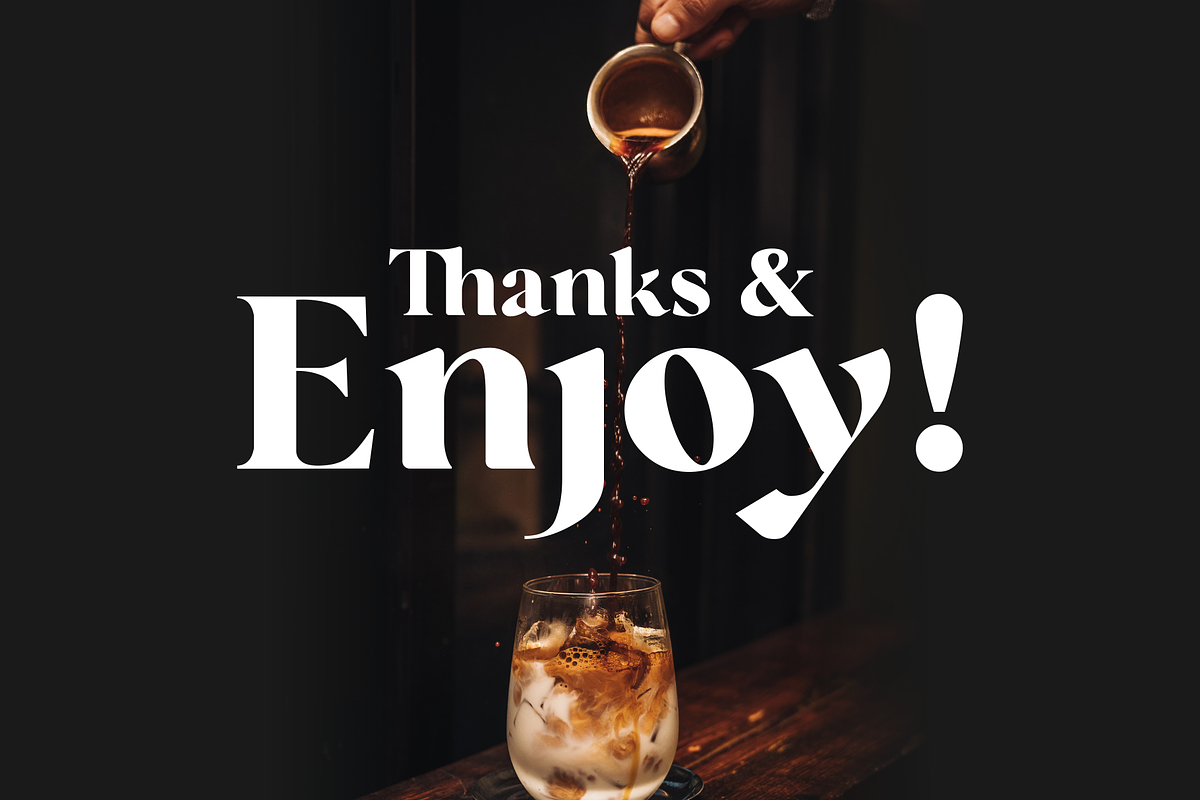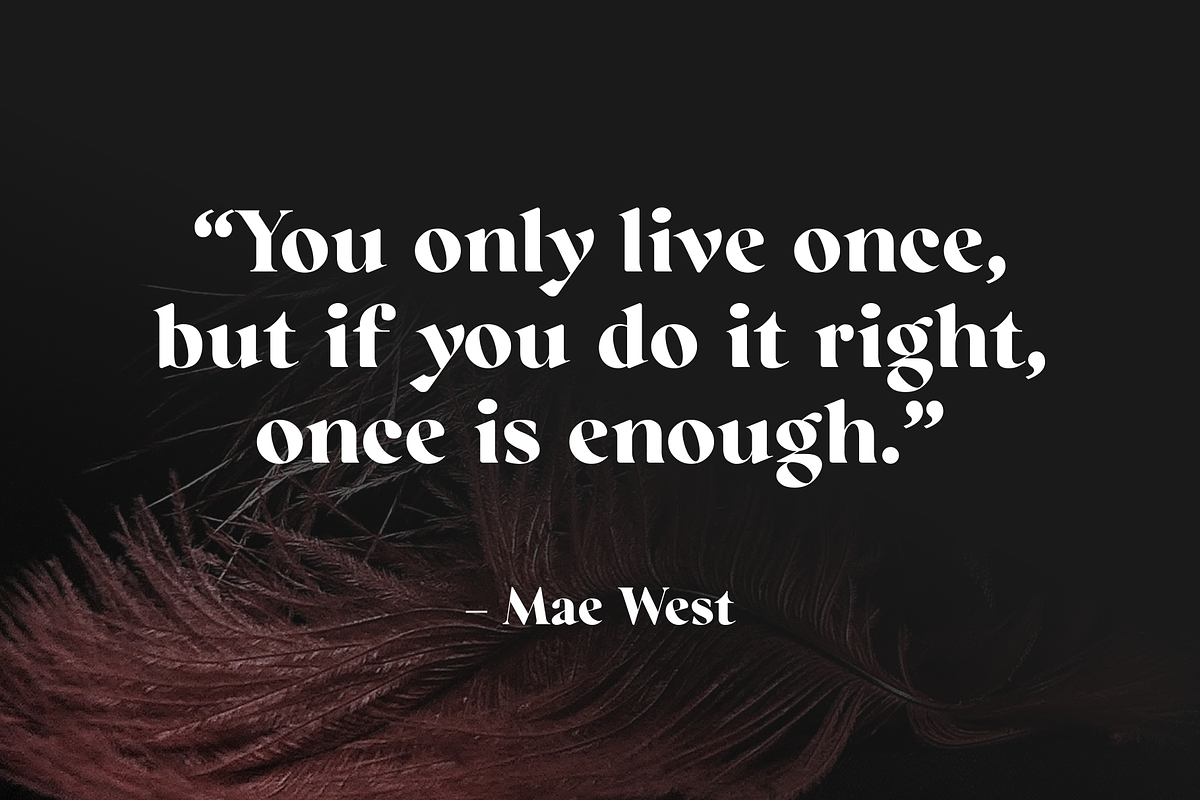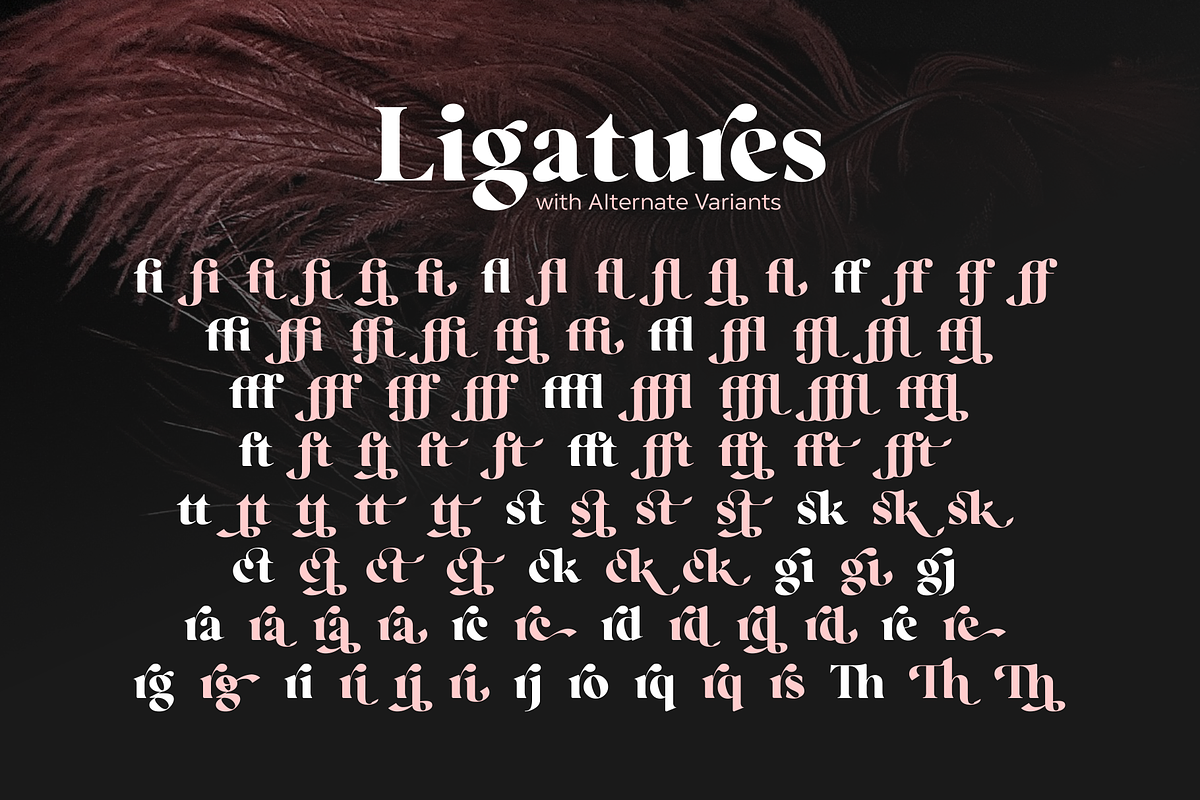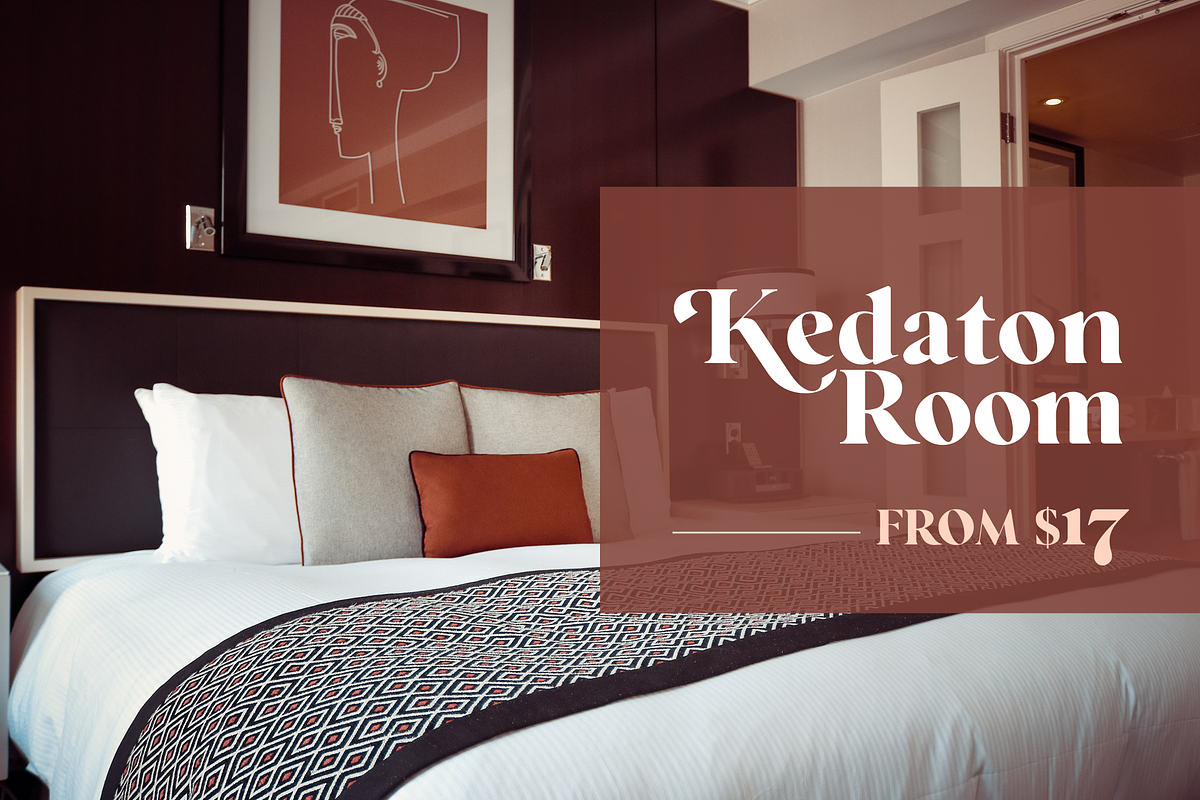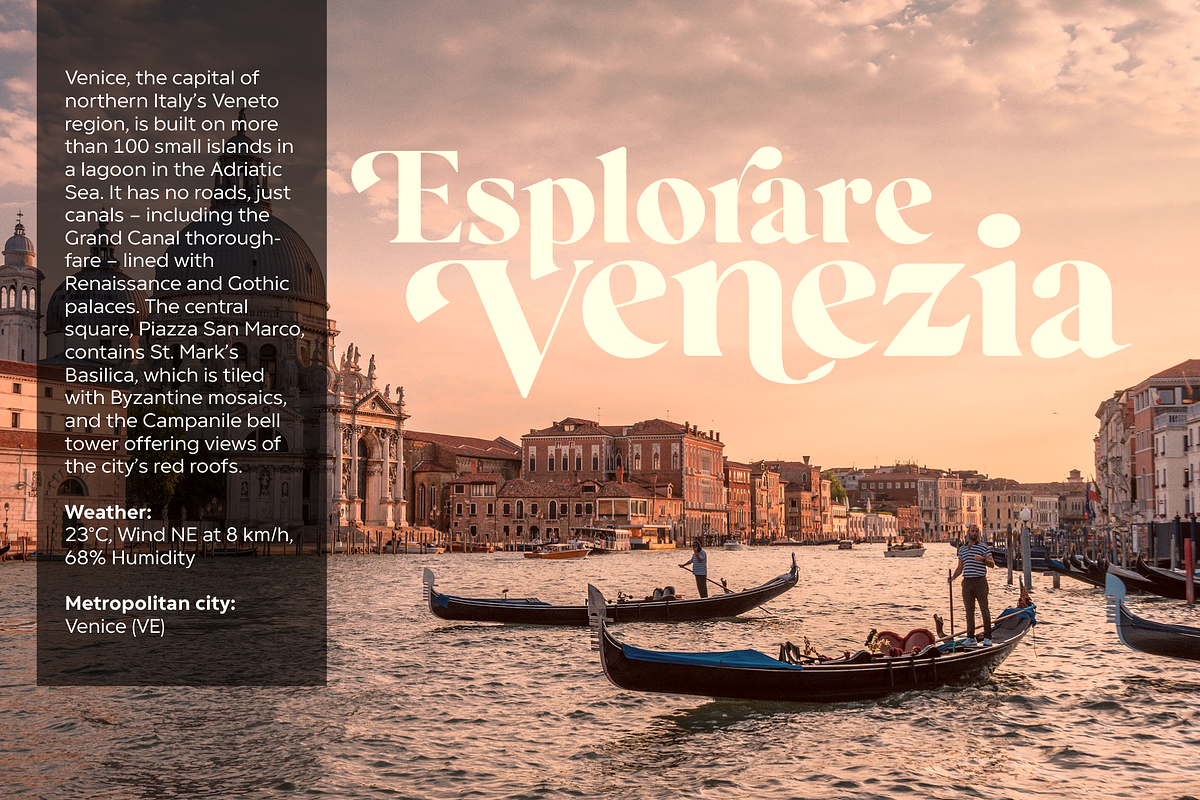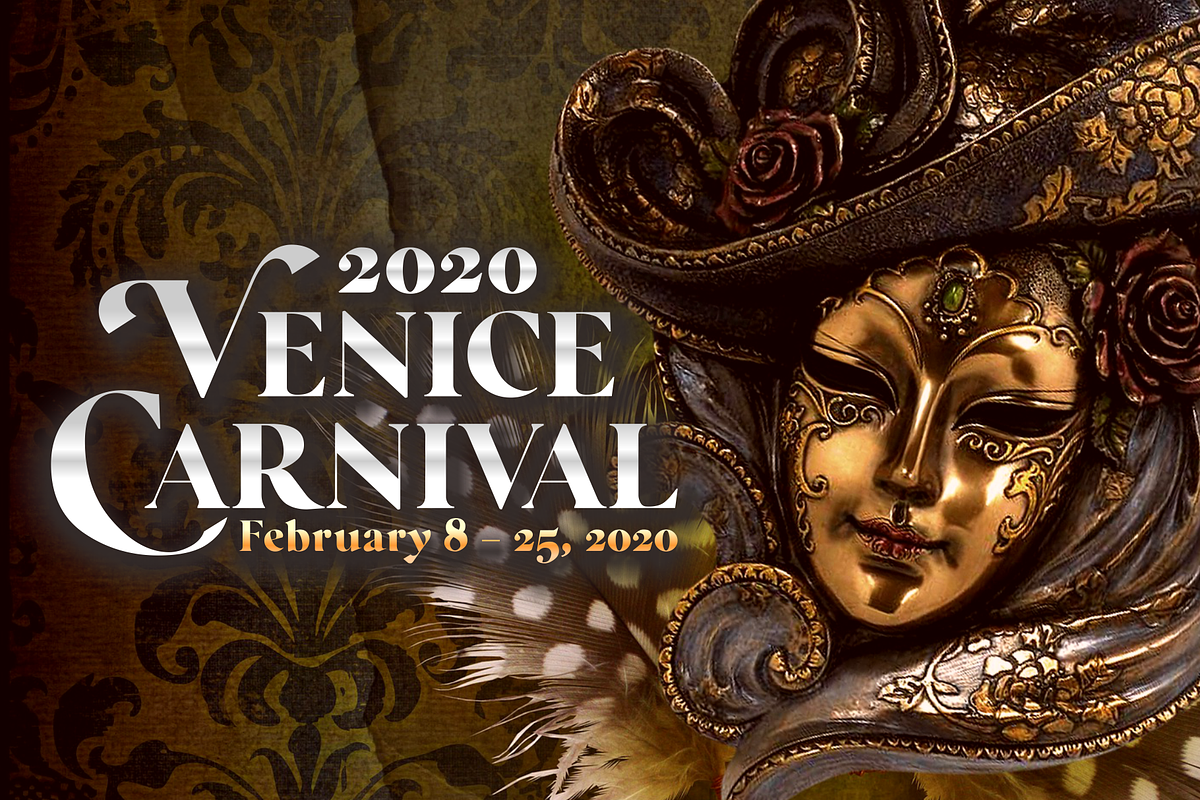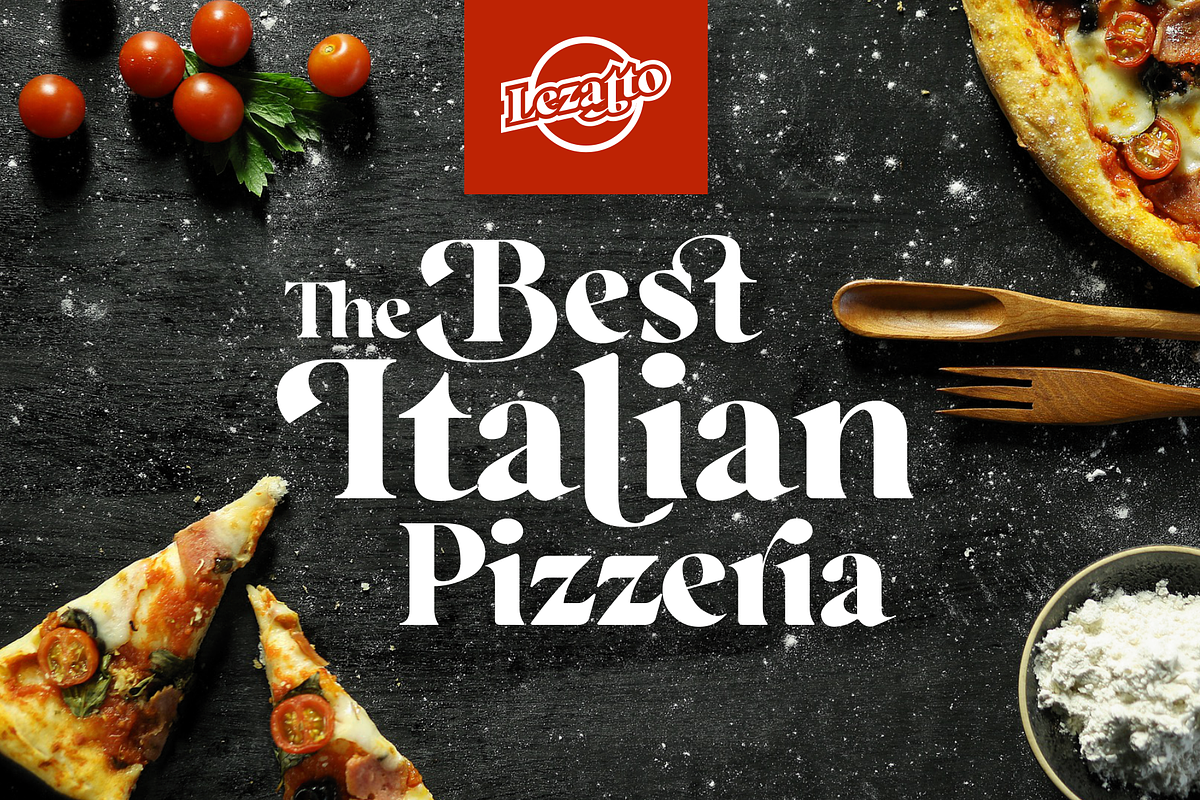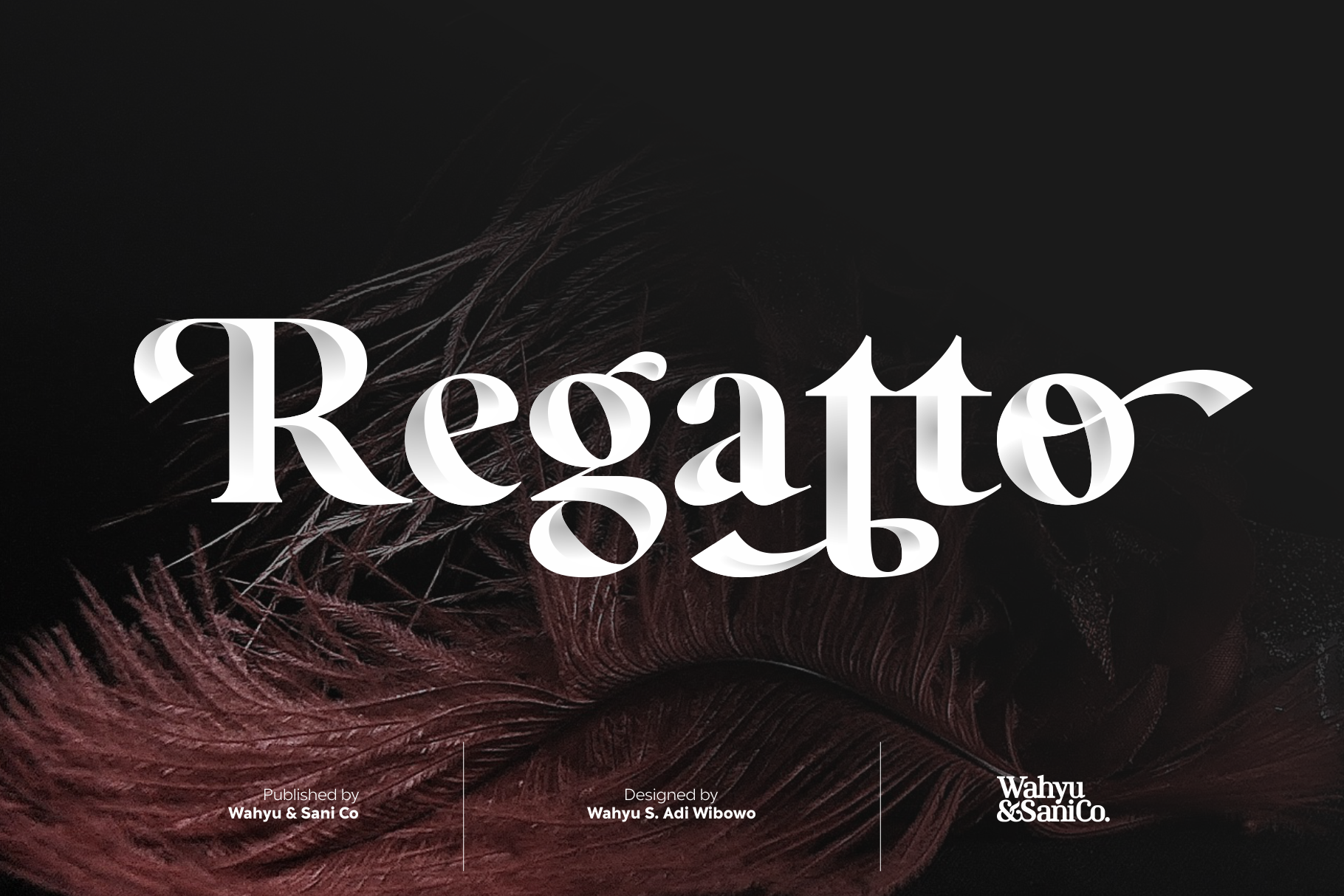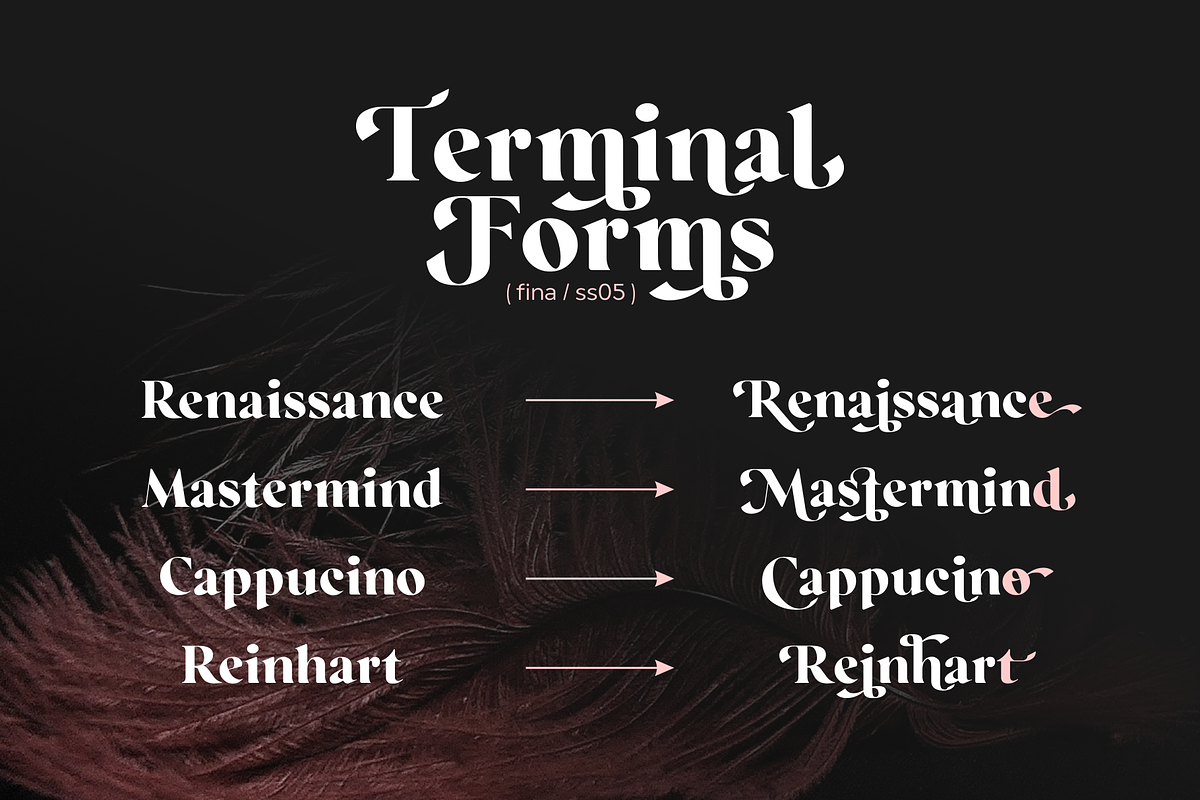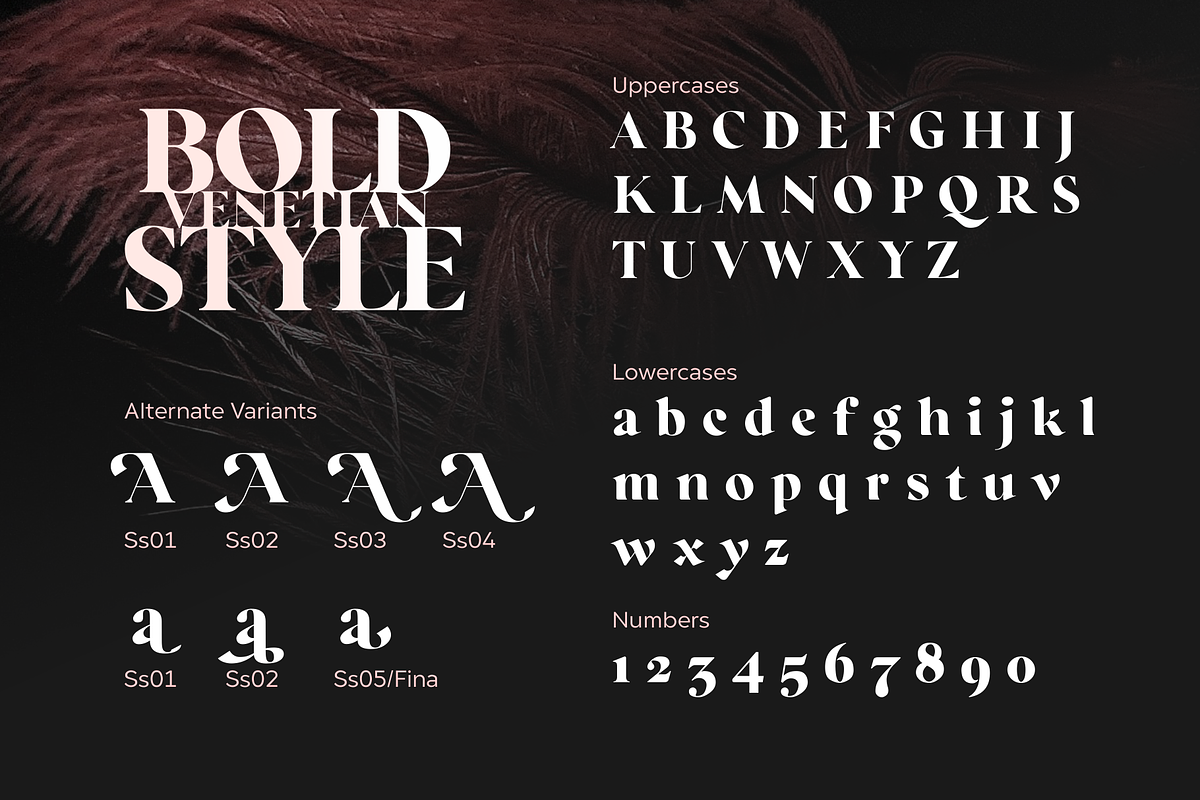
Regatto | Venetian Style Typeface
Inspired by the beauty and elegance of Venetian Style typeface, Regatto was created in high-contrast and bold style. It comes with a lot of alternates and ligatures with their own variants for any purposes from headline to poster. This font also has some letters with diacritics accent to support some other non-English languages.
Note: This font does not contain small caps, some texts on the images above were done by adjusting the initial letter size.